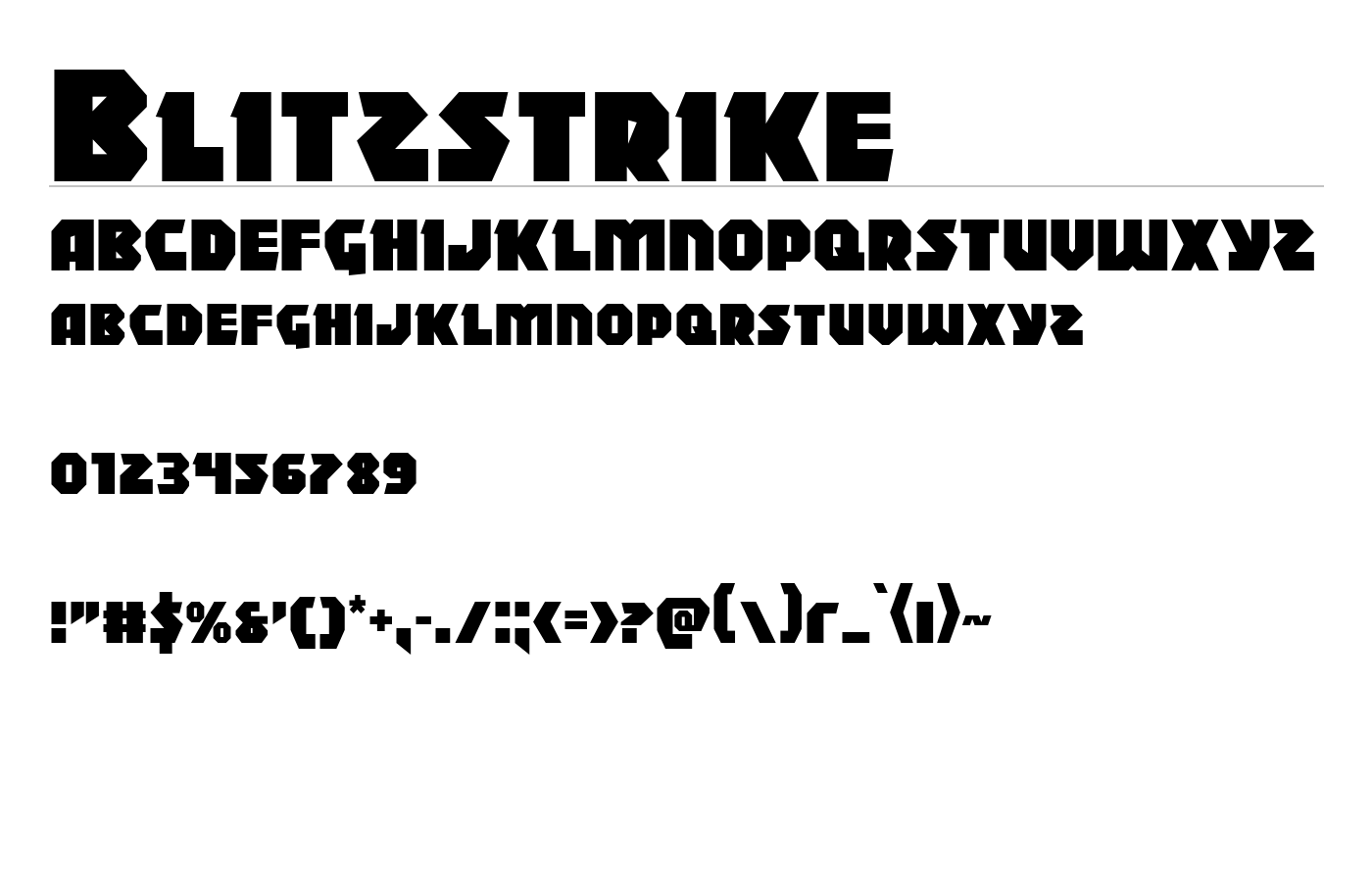
Blitzstrike is a bold, geometric sans serif font with a strong, angular design that commands attention. Its heavy weight and sharp, blocky letterforms give it a powerful, modern feel, perfect for impactful headlines, logos, and branding where a dynamic, aggressive style is desired. This font excels in creating a striking visual presence for projects needing a bold, edgy, and contemporary look.
Blitzstrike Font
About Blitzstrike Font